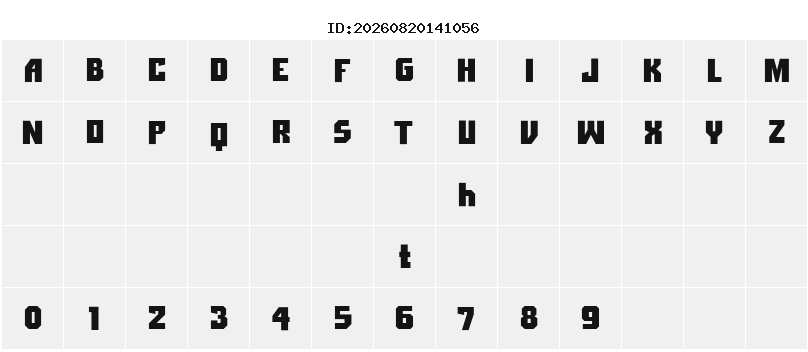
ShaftPlain Preview
• Font Name: ShaftPlain
• Full Font Name: ShaftPlain
About ShaftPlain.ttf
ShaftPlain.ttf is a modern, elegant sans-serif font designed for ultimate readability and visual harmony. Perfect for branding, headlines, web design, and print materials.